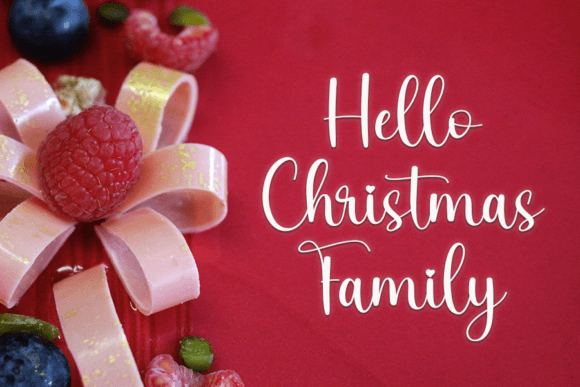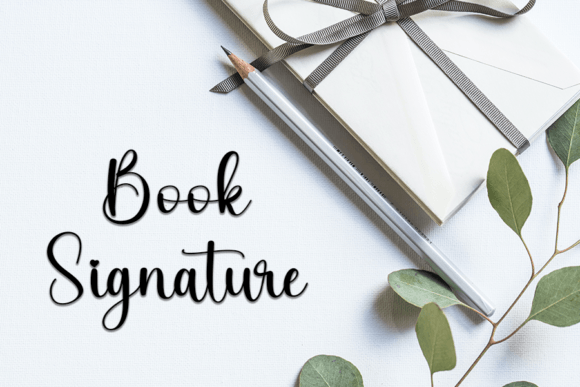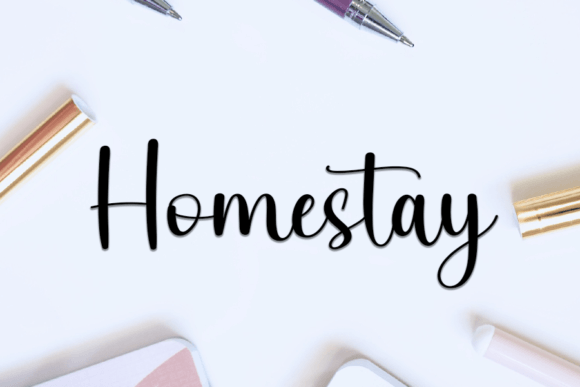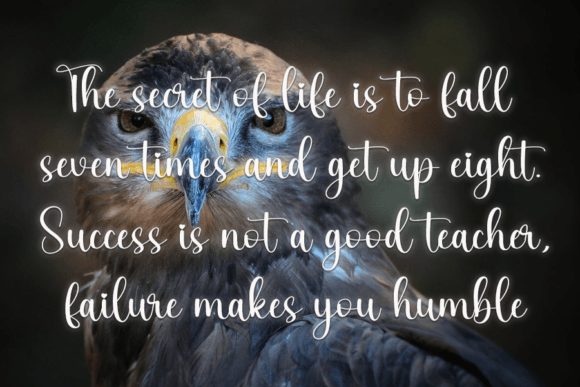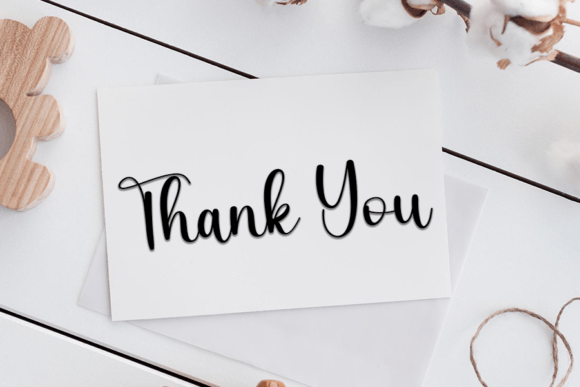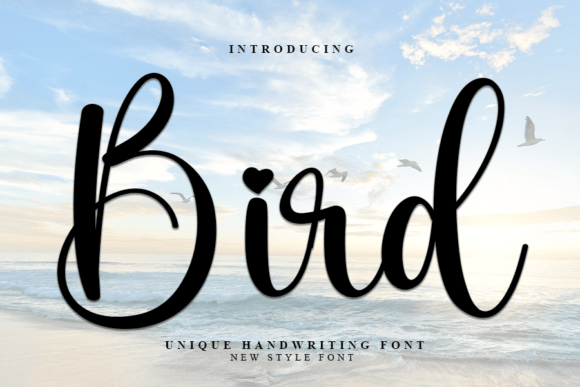
The Bird Font: A Designer’s New Best Friend
I still remember the day I stumbled upon the Bird font while working on a project for a client who wanted a custom greeting card design. I had spent hours browsing through font libraries, but nothing seemed quite right. That was until I saw Bird – a beautiful script font that instantly caught my eye. Its unique blend of elegance and playfulness made it perfect for the project, and I knew right then that it had the potential to become my go-to font for all sorts of creative endeavors.
What I Love About Bird Font
• ✨ Unique and beautiful script style that’s perfect for making a statement
• ✅ Highly versatile and suitable for various design projects, from crafts to digital designs
• 💫 Supports OpenType features, allowing for creative experimentation with glyphs and stylistic alternates
• 👍 Easy to read and understand, even in smaller sizes
While Bird font is an excellent choice for many design projects, it’s not without its quirks. For instance:
• 🤔 Some users might find the font a bit too ornate for very formal or traditional designs
• ⚠️ It may not be the best choice for body text or long paragraphs, as its script style can be a bit harder to read in large quantities
The Story Behind Bird Font
While the origins of Bird font are shrouded in mystery, it’s said that the designer was inspired by the beauty of birds and the fluidity of their movements. The result is a font that’s both elegant and playful, perfect for a wide range of design projects.
Font Name Bird Font
Author PAYJHOshop
Is Bird font suitable for body text? While Bird font is beautiful, it’s not the best choice for body text or long paragraphs. Its script style can be a bit harder to read in large quantities.